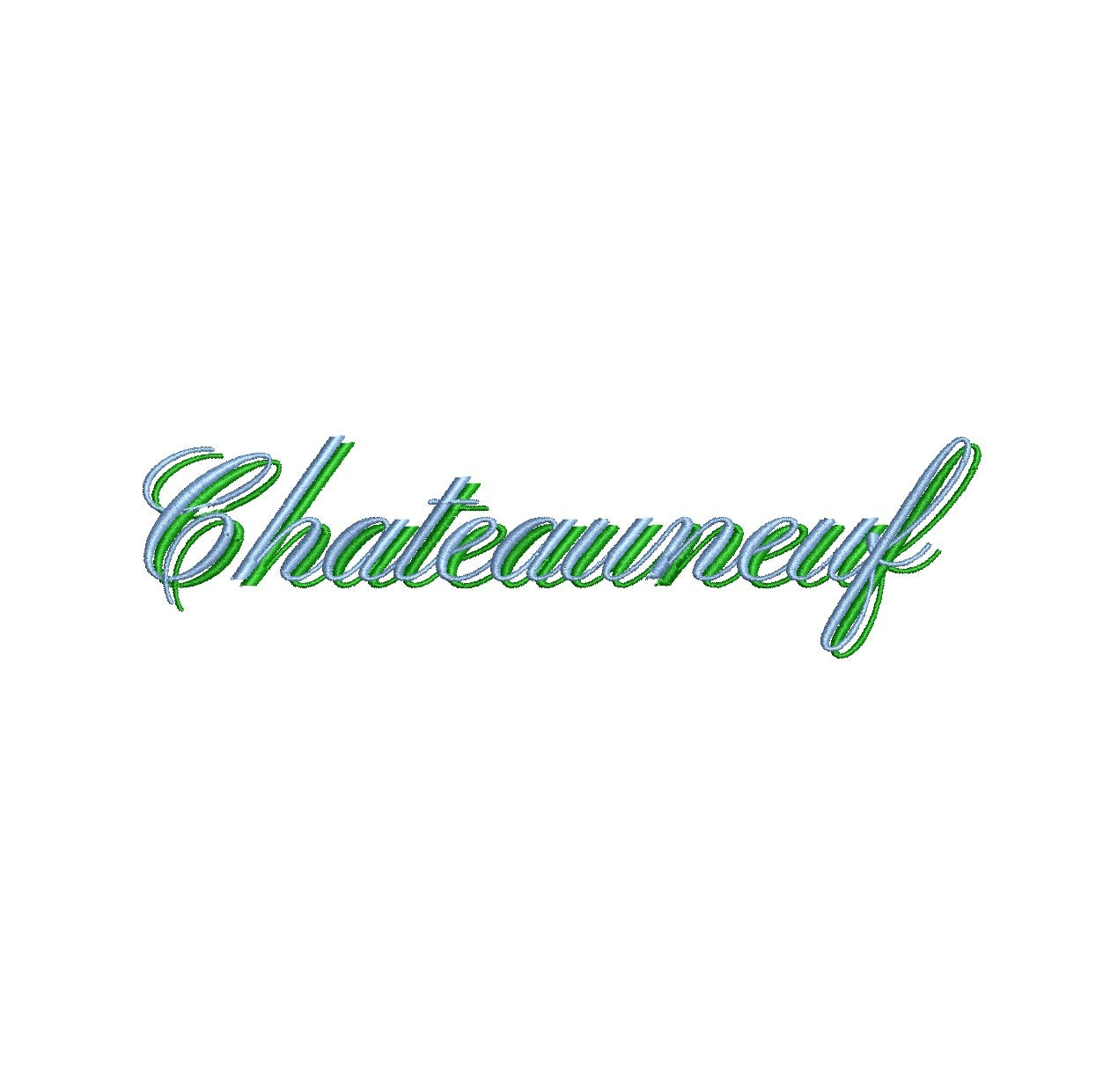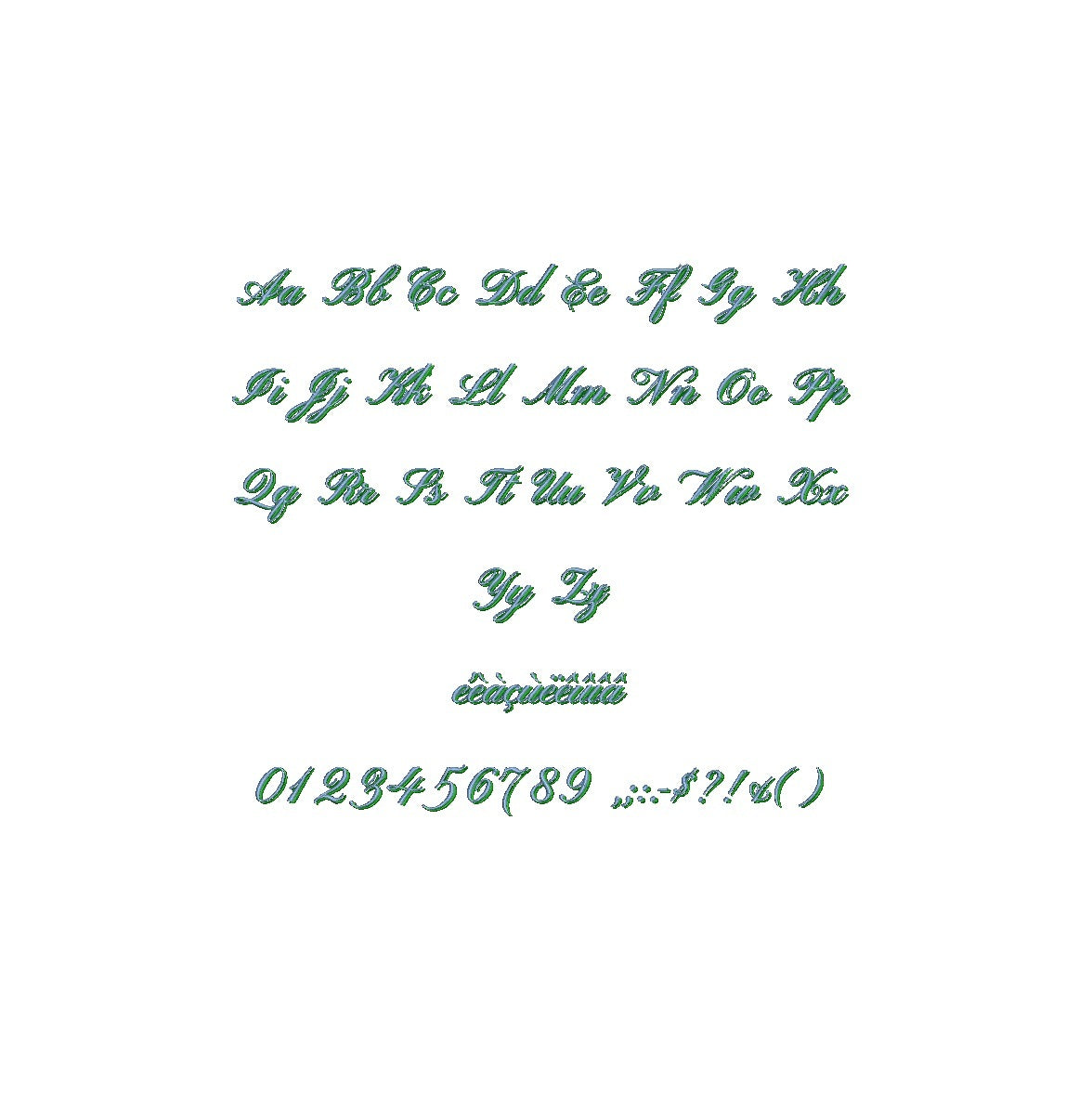
Elevate your designs with the sophisticated Chateauneuf Shadow ESA font. Fully compatible with Wilcom Studio e4.5.6 and Hatch 3 versions and up, this font adds an air of refinement and modern allure to your projects. The intricate shadows and clean lines of this font create a striking visual impact that sets your designs apart. Streamline your creative process and achieve impeccable results by utilizing this font with industry-leading software. Upgrade your projects with the compatibility of Chateauneuf Shadow ESA font and craft visuals that leave a lasting impression. Embrace sophistication and creativity for your design journey today!